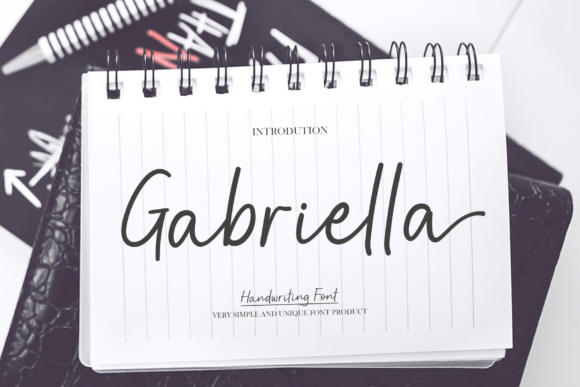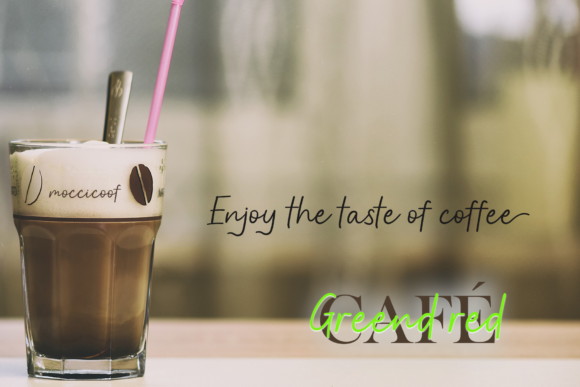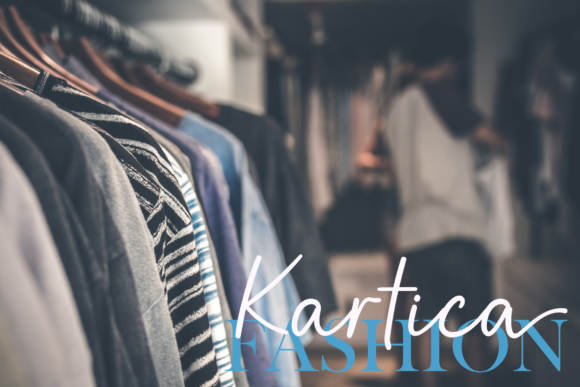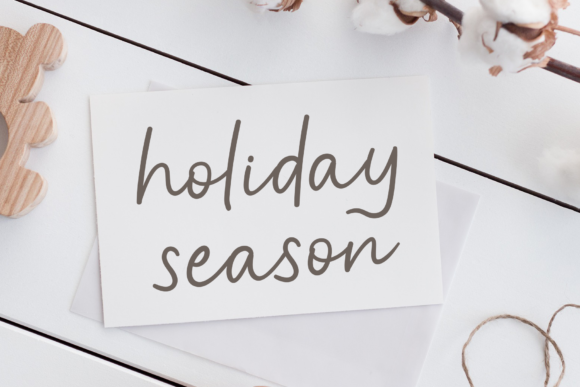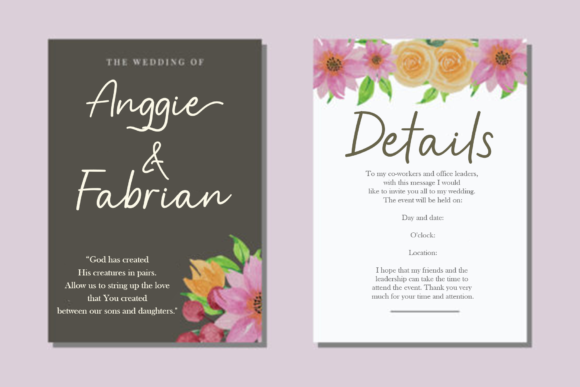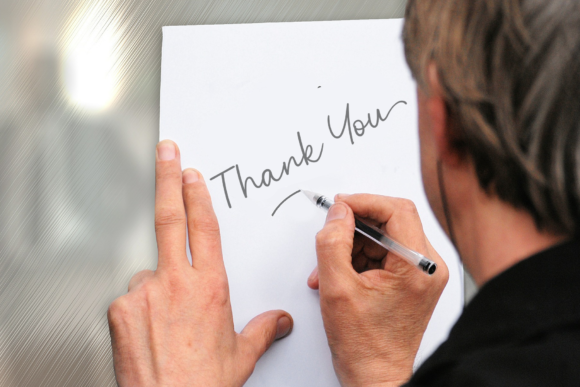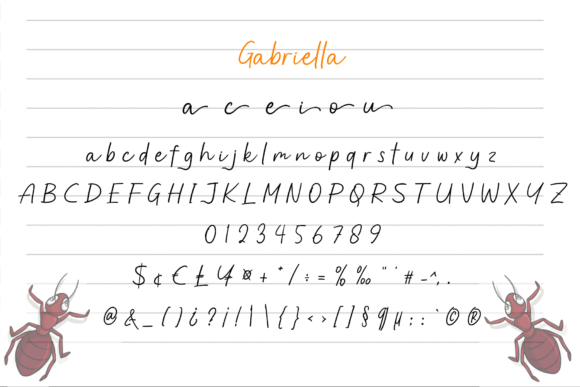
Gabriella Font
About Gabriella Font
Gabriella is a sophisticated and captivating handwritten font that effortlessly blends the timeless charm of calligraphy with a modern twist. This font’s exquisite design showcases a delicate balance between traditional elegance and contemporary flair, making it a standout choice for a wide range of creative projects.
The font’s most distinctive feature is its ability to capture the essence of classic calligraphy while infusing it with a sense of freshness and modernity. The strokes flow gracefully, evoking the artistry of handcrafted writing while maintaining a refined and up-to-date appearance.
Gabriella font adds an air of refinement and luxury to any project it graces. The fluid and graceful lines emulate the beauty of a handcrafted signature, imparting a personalized and premium touch. This makes it particularly well-suited for high-end branding and logo design, as it can convey a sense of exclusivity and authenticity.
Beyond branding, Gabriella font excels in a variety of design contexts. It’s an excellent choice for elegant invitations, wedding stationery, and event announcements. Its intricate curves and sophisticated aesthetic elevate the overall look of these materials, setting the tone for special occasions.
When applied to digital media, such as social media graphics or website headers, Gabriella font maintains its timeless appeal. Its clean lines and balanced form ensure readability while adding a touch of elegance to your online presence.
Furthermore, Gabriella font’s versatility extends to printed materials such as packaging, business cards, and product labels. Its exquisite script can enhance the visual impact of these items, leaving a lasting impression and reinforcing brand identity.
Gabriella font is a versatile option for adding a touch of refinement to various typographical elements, whether it’s headlines, titles, quotes, or captions. Its ability to seamlessly blend classic and contemporary aesthetics makes it suitable for a wide array of design styles and themes.
In summary, Gabriella is a font that captures the essence of calligraphy’s beauty while infusing it with a modern sensibility. Its intricate strokes and graceful forms make it a captivating choice for branding, invitations, digital media, and print materials. By incorporating Gabriella font into your projects, you can elevate your designs to new levels of elegance and sophistication.